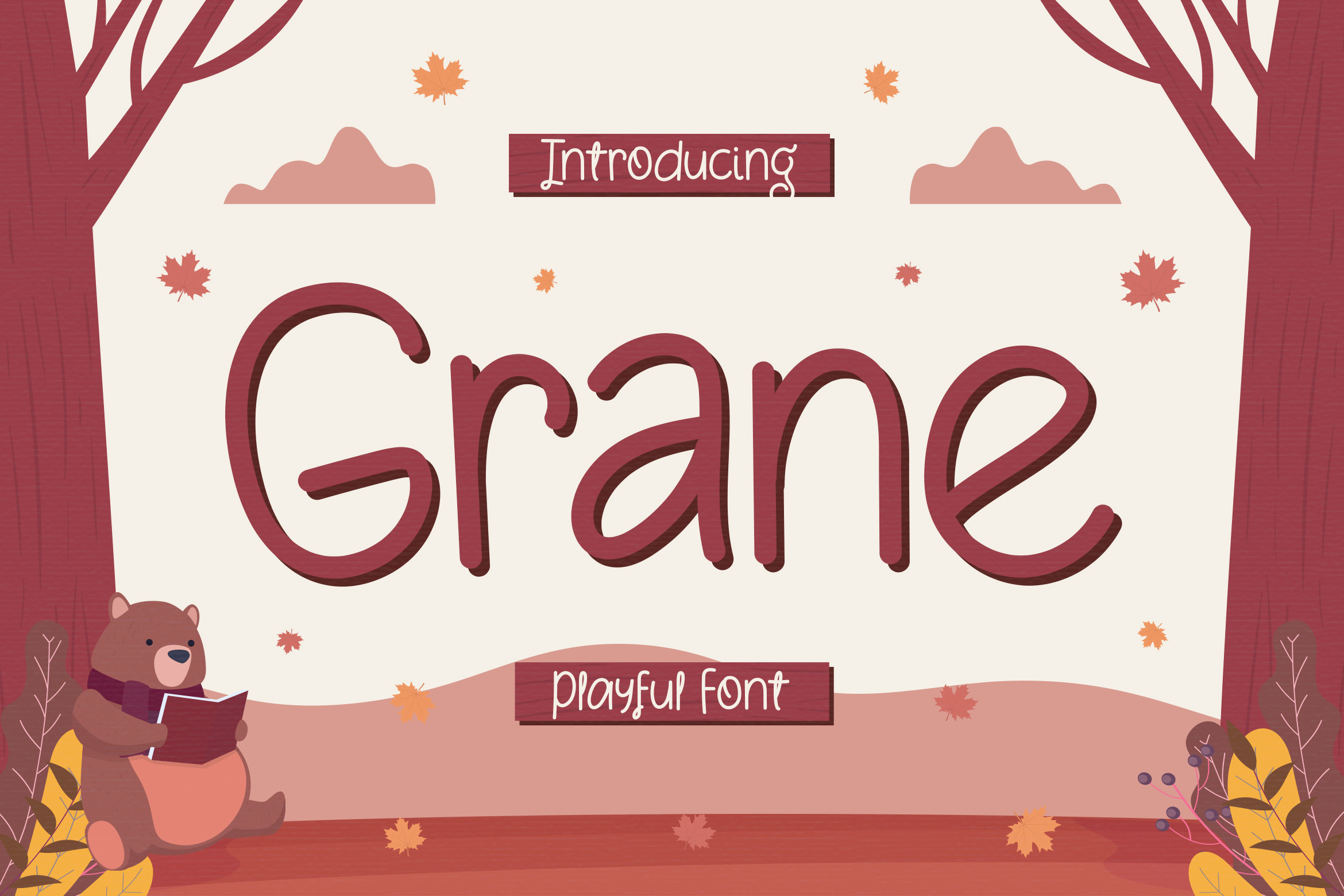
Grane - Playful Font
Grane is a modern playful font, carefully handcrafted to become a true favorite. This font will look outstanding in any context, whether it’s being used on busy backgrounds or as a standalone headline!